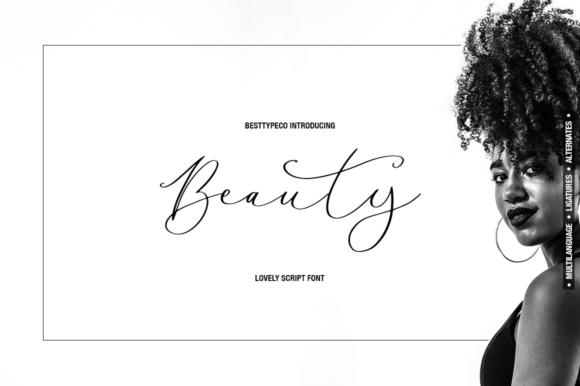
Unleash Your Creativity with the Beauty Lady Font
As a designer, have you ever found yourself in a moment of pure inspiration, where the perfect font suddenly pops into your mind and takes your project to the next level? For me, it’s moments like these that remind me why I love what I do. And today, I want to share with you a font that has the power to elevate your designs and leave a lasting impression – the Beauty Lady Font.
This exquisite handmade calligraphy font is more than just a pretty face; it’s a tool that can add an air of sophistication and elegance to any project. With its thin letters, the Beauty Lady Font brings a unique style that’s sure to set you apart from the crowd. Whether you’re a seasoned designer or just starting out, this font is a valuable addition to your toolkit.
Beauty Lady Font Key Features
- Unique Characteristics: Elegant script, cursive design, perfect for feminine and elegant designs, wedding invitations, and beauty-related products.
- Language Support: Multilingual support for various languages, including Latin-based languages and some Asian languages.
- Font Style: Casual, Script
Beauty Lady Font Review
Overall, the Beauty Lady Font has a whimsical and feminine touch that’s perfect for beauty and lifestyle brands. ✨ The delicate script and ornate details give it a luxurious feel, making it suitable for high-end products and services.
Some of the strengths of the font include:
- ✨ Elegant and sophisticated design that evokes a sense of luxury
- ✨ Wide range of languages supported, making it a versatile option for global brands
- ✨ Perfect for creating eye-catching headlines and titles
- ⚠️ Limited versatility in body text, making it less suitable for long-form content
- ⚠️ May not be suitable for digital use due to its ornate details, which can be difficult to read on smaller screens
- ⚠️ May require additional styling to achieve the desired level of legibility
In conclusion, the Beauty Lady Font is a beautiful and elegant choice for beauty and lifestyle brands, but it may require some additional styling to achieve the best results. With its luxurious feel and wide range of languages supported, it’s a great option for high-end products and services.
Tips for Getting the Most Out of the Beauty Lady Font
For best results, use the Beauty Lady Font in combination with elegant graphics and pastel colors to create a feminine and sophisticated design.
Experiment with different font sizes and styles to create visual interest and emphasis.
The Beauty Lady Font is perfect for:
- Beauty and fashion branding
- Women’s lifestyle and wellness design
Comparison: While Beauty Lady Font has a more feminine and approachable feel, Carolyna Pro Font is more luxurious and high-end. Carolyna Pro Font is also more suitable for professional and corporate designs.